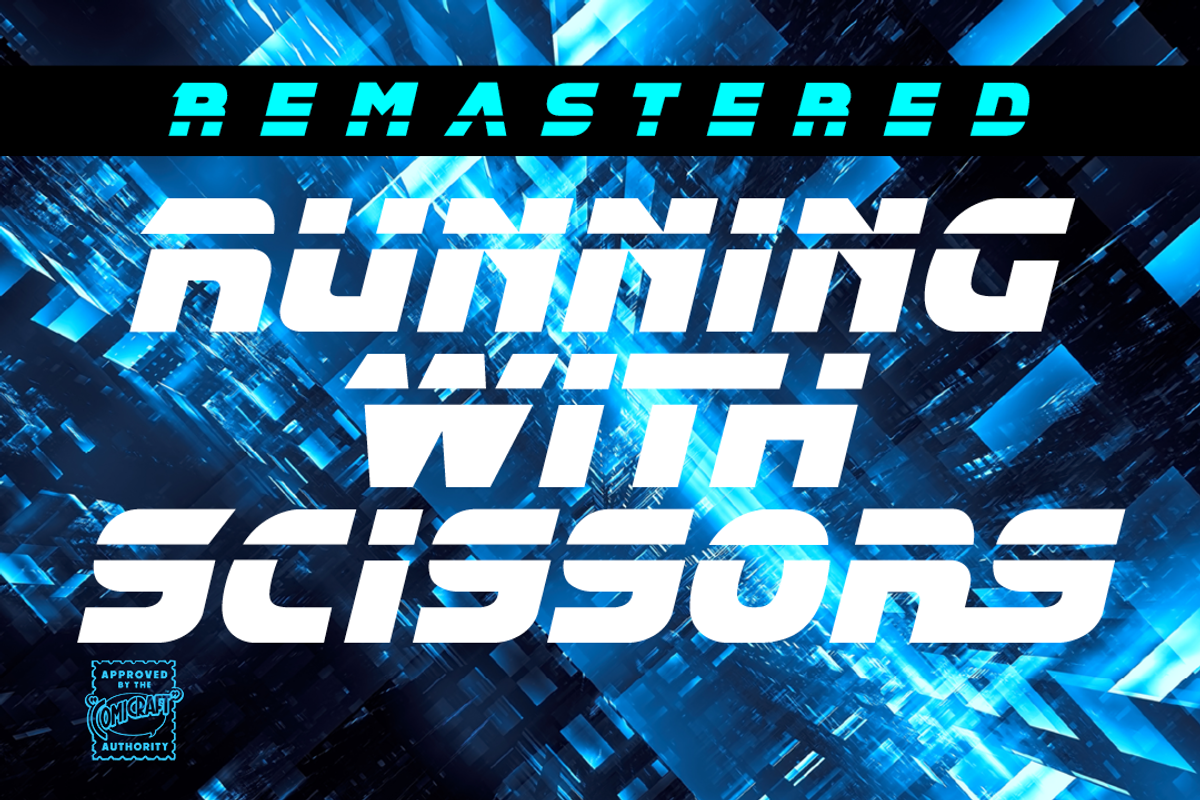
RunningWithScissors Sci-Fi Logo Font Free Download is a bold and futuristic typeface designed to make a powerful statement. With its sharp edges, geometric shapes, and high-tech design, this font is perfect for creating sci-fi logos, futuristic branding, posters, and anything that requires a cutting-edge, tech-inspired aesthetic.
Whether you’re designing for a space-themed event, tech company, or digital project, RunningWithScissors offers a modern and dynamic look that’s sure to grab attention. Its unique structure and clean lines make it ideal for both large displays and smaller text, adding a professional, futuristic flair to your design.
The font includes uppercase letters, numerals, punctuation, and multilingual support, ensuring it’s versatile for various design applications in both print and digital media.